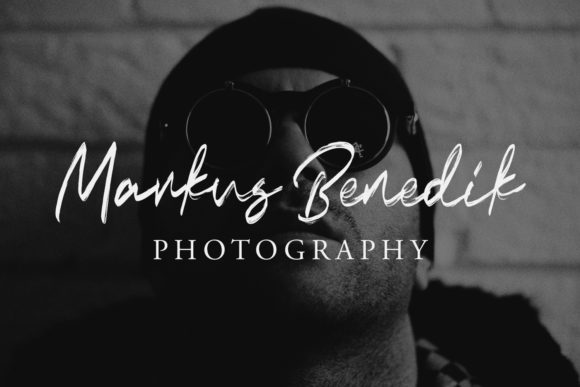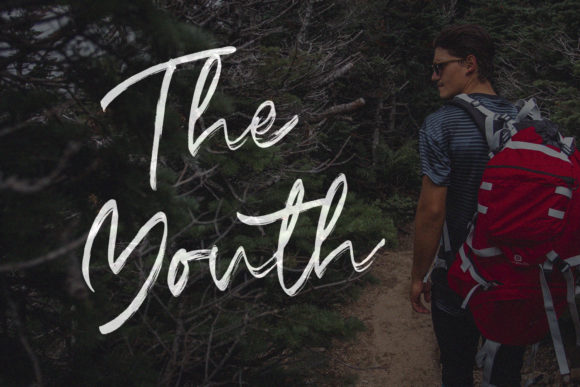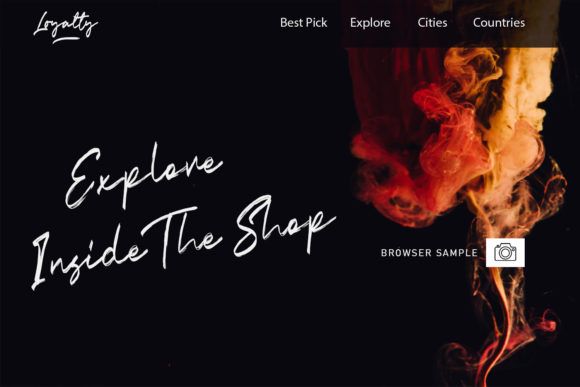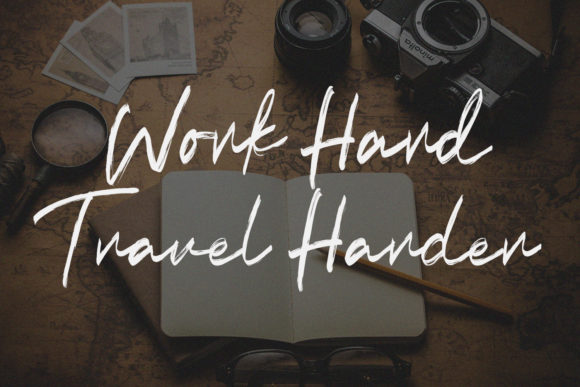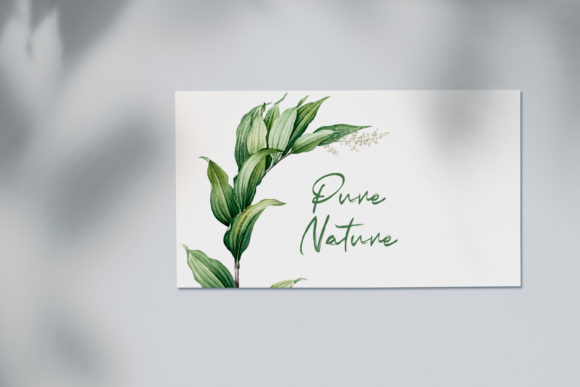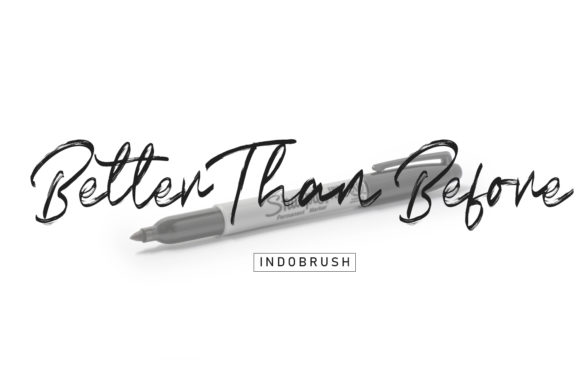
Introduction to Indobrush Font
Have you ever stared at a blank canvas, pencil in hand, waiting for the perfect spark to strike? For designers, this moment of creative block can be the most daunting – but also the most exciting. It’s when the possibilities are endless, and the right design resource can make all the difference. That’s where the Indobrush Font comes in, a casual, fun handwritten font that’s about to become your new best friend.
With its clean and quirky aesthetic, the Indobrush Font is perfect for logos, branding, social media, and crafty DIY projects. Its high-quality design makes it a valuable asset for any designer looking to add a personal touch to their creative project. And the best part? It’s available for free download, complete with a transparent background, making it easy to integrate into your next design.
Key Features of Indobrush Font
- Features a transparent background, allowing for seamless integration into any design.
- Designed with precision and attention to detail, ensuring crisp and clear typography at any resolution.
- Available in a range of sizes, making it suitable for use in various contexts, from small text to large headings.
- Perfect for designers and artists looking for a distinctive font to elevate their creative project.
Honest Review: Indobrush Font
As a designer, I’m always on the lookout for high-quality design resources that can elevate my creative projects. Recently, I came across the Indobrush Font, and I must say, it’s a gem. The first thing I noticed was the clean and modern design, which makes it perfect for a variety of projects, from digital to print.
Here are some things that work well about the Indobrush Font:
- ✨ High-quality design that’s perfect for creative projects.
- ✨ Comes with a transparent background, making it easy to customize and use.
- ⚠️ Some users may find the font to be too minimalist, which may not appeal to everyone’s taste.
Overall, I’m impressed with the Indobrush Font, and I think it’s a great addition to any designer’s toolkit. With its high-quality design and transparent background, it’s perfect for creative projects. Just be aware of the limitations, and you’ll be good to go.
Tips for Getting the Most Out of Indobrush Font
To get the most out of the Indobrush Font, use it in conjunction with other design elements, such as images and shapes, to create visually appealing designs.
The Indobrush Font is commonly used in:
- Graphic design projects.
- Branding and logo design.
- Print and digital advertising.
Alternatives to Indobrush Font
The Great Vibes Font is a beautiful, elegant script font perfect for creative projects that require a touch of sophistication. It features a transparent background and a high-quality design that’s ideal for logos, branding, and other design resources. When to use: For projects that need a refined, high-end look.
Great Vibes Font compares to Indobrush Font in its versatility and sophistication, but with a more elegant and refined feel. It’s a great alternative for designers looking for a high-quality script font.
The Dancing Script Font is a playful, cursive font that’s perfect for creative projects that require a fun and lively vibe. It features a transparent background and a high-quality design that’s ideal for logos, branding, and other design resources. When to use: For projects that need a playful and energetic feel.
Dancing Script Font compares to Indobrush Font in its playful and energetic feel, but with a more dynamic and lively personality. It’s a great alternative for designers looking for a fun and creative script font.
The Lobster Font is a fun, cursive font that’s perfect for creative projects that require a playful and casual vibe. It features a transparent background and a high-quality design that’s ideal for logos, branding, and other design resources. When to use: For projects that need a relaxed and friendly feel.